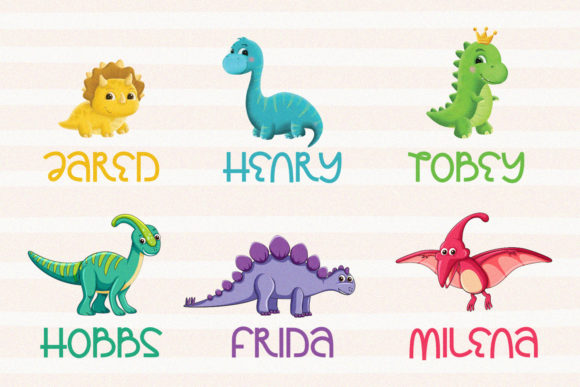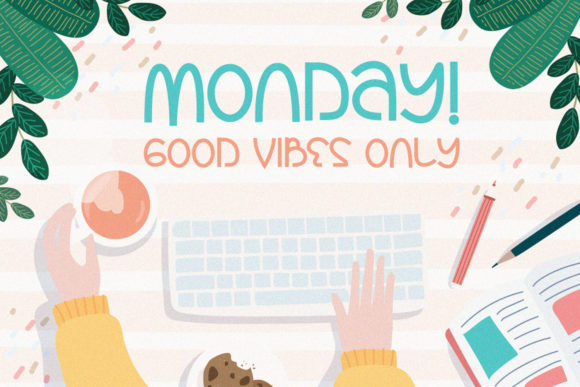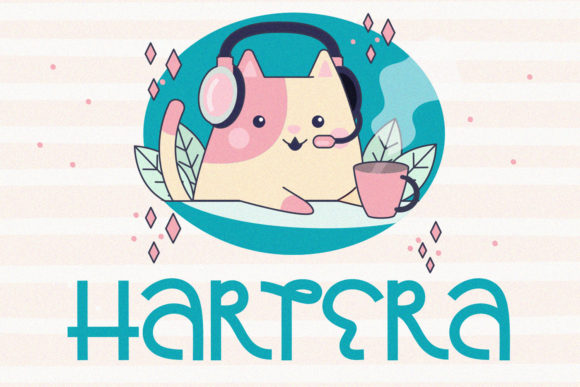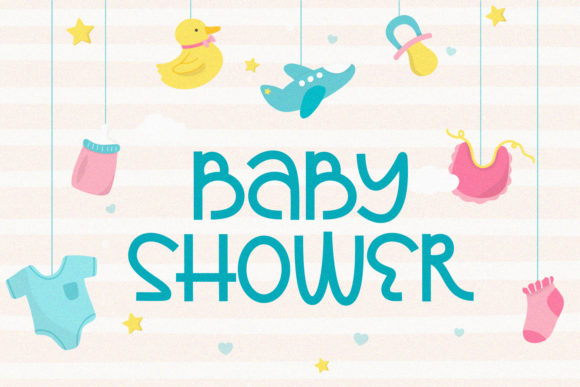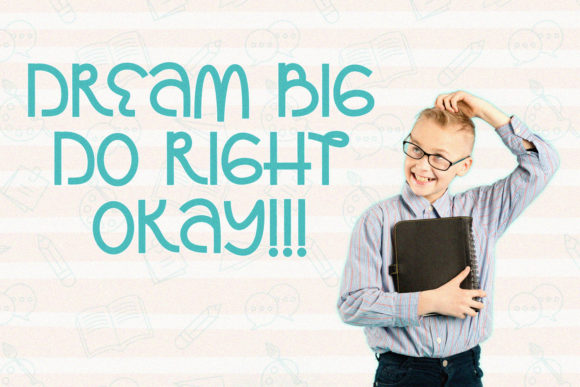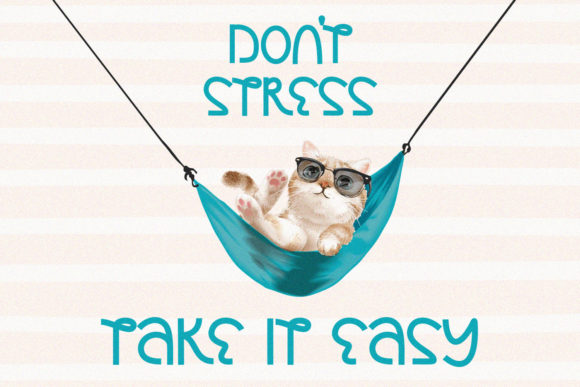
The Bigdino Park Font: A Playful and Versatile Display Font
As a designer, I’ve had my fair share of frustrating moments while working on a project. I recall one particular instance where I was struggling to find the perfect font for a client’s branding campaign. The client wanted something playful, yet professional, and I was determined to deliver. That’s when I stumbled upon the Bigdino Park font, and it instantly stole my heart. In this article, I’ll share my experience with this incredible font, its features, and how to make the most of it in your designs.
A Personal Review: What I Love About Bigdino Park
Bigdino Park is a masterpiece of a font, with its distinct and casual letters that exude a playful and minimalist vibe. Here are some things I love about it:
• Versatility: Bigdino Park is incredibly versatile, making it perfect for a wide range of design projects, from branding and advertising to packaging and digital media.
• Ease of use: The font is easy to read and works well in various sizes, making it ideal for both headlines and body text.
• 💡 Unique character: Bigdino Park has a unique character that sets it apart from other fonts, making it perfect for designers looking to add a touch of personality to their work.
While Bigdino Park is an amazing font, there are a few quirks to be aware of:
• 🤔 Limited serif options: Bigdino Park is a sans-serif font, which may not be suitable for projects that require a more traditional or formal look.
• ⚠️ Glyph limitations: While the font has a wide range of glyphs, it may not have every special character or symbol you need, so be sure to check the font’s capabilities before using it.
The Backstory Behind Bigdino Park
Bigdino Park was designed by a team of creatives who wanted to create a font that was both playful and professional. The font’s unique character and versatility make it perfect for a wide range of design projects. While the exact backstory behind the font is unclear, it’s evident that the designers put a lot of thought into creating a font that’s both functional and beautiful.
What is Bigdino Park? Bigdino Park is a playful and minimalist display font with a unique character and versatile style.
Does Bigdino Park support OpenType features? Yes, Bigdino Park supports OpenType features, including glyphs and stylistic alternates.